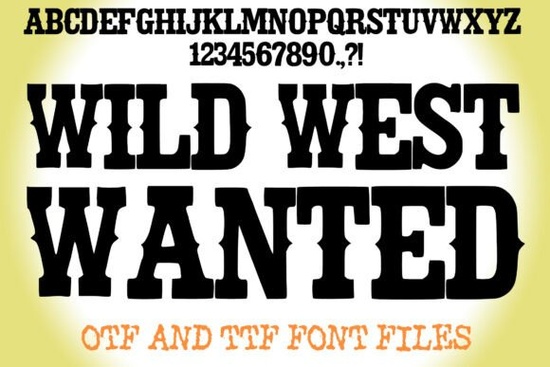
If you're working on a design that needs to capture the spirit of saloons, sheriffs, and sunbaked frontier towns, the Wild West Wanted Font might be exactly what your project’s missing. This display slab serif font brings together bold structure and vintage character ideal for posters, branding, or any creative piece where you want instant Western flair without sacrificing readability.
What makes this font stand out is how it balances drama with function. The thick slab serifs, high stroke contrast, and sharply indented stems give each letter a rugged presence, while the generous width ensures it holds attention even at smaller sizes. Unlike some novelty fonts that lean too hard into gimmicks, the Wild West Wanted Font stays legible across digital and print formats whether you’re designing a rodeo event flyer or a rustic product label.
Who is this font best suited for?
This typeface works especially well for creators who need authentic period styling without spending hours hunting through archives:
- Print-on-demand sellers creating Western-themed apparel, mugs, or wall art
- Small businesses in hospitality (think cowboy cafes or ranch-style boutiques) building a cohesive brand identity
- Graphic designers crafting event posters, book covers, or social media graphics with a historical twist
- Crafters and hobbyists making custom signs, greeting cards, or scrapbook elements
Because it’s a display font, it’s not meant for body text but as a headline or accent typeface, it delivers strong visual impact with minimal effort.
How does it compare to other slab serif fonts?
Not all slab serifs are created equal. Many modern versions prioritize minimalism or geometric precision, which can feel too clean for a dusty trail aesthetic. The Wild West Wanted Font leans into its historical inspiration: exaggerated proportions, uneven ink traps, and subtle irregularities mimic the look of 19th-century wood-type printing. That said, it’s been carefully digitized so you don’t get jagged edges or spacing issues when scaling it up or down.
Practical uses beyond posters
While vintage wanted posters are the obvious starting point, this font shines in unexpected places:
- Product packaging for BBQ sauces, coffee blends, or craft spirits with a frontier story
- Social media banners for Western-themed events like line dancing nights or heritage festivals
- Custom embroidery designs for denim jackets or workwear patches
- Themed party invitations think birthday bashes styled like old-time saloon gatherings
The key is using it sparingly. One or two words in Wild West Wanted Font can anchor your entire layout with just the right amount of character.
- Is my project visually aligned with rustic, historical, or Americana themes?
- Will I use it primarily for headlines, logos, or short phrases (not paragraphs)?
- Do I need a font that remains readable at both large and medium sizes?
- Am I comfortable pairing it with simpler sans-serif or neutral serif fonts for balance?
If you answered yes to most of these, the Wild West Wanted Font could be a reliable, time-saving asset that adds instant atmosphere without requiring custom illustration or complex design work.